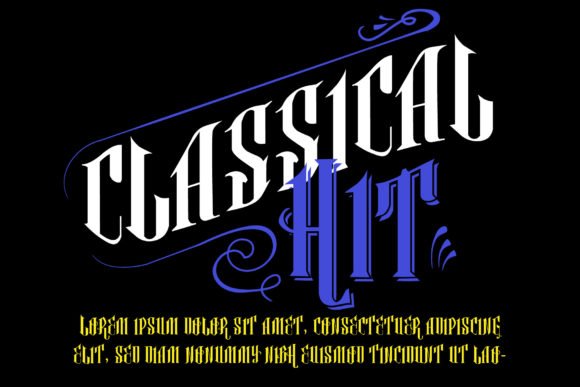
Unleash the Timeless Charm of Your Designs
Have you ever stared at a blank canvas, waiting for inspiration to strike? The blank page stares back, and you’re left wondering where to begin. It’s a moment we’ve all been in, and it’s precisely this moment that the right font can make all the difference. Introducing the Classical Hit Font, a magical serif font that will transport your designs back in time.
This enchanting font boasts a vintage and retro style that adds a touch of sophistication to any creative project. Whether you’re crafting Instagram posts or calligraphy scripts for DIY projects, Classical Hit Font will elevate your ideas into stunning works of art.
Classical Hit Font Key Features
- Unique Characteristics: Features a classic, elegant design with subtle serif details, evoking a sense of sophistication and refinement.
- Kerning and Ligatures: Offers advanced kerning and ligature features, ensuring smooth text flow and optimal readability in complex text settings.
Classical Hit Font Review
Overall, I think the Classical Hit Font has some great qualities, but it also has some areas where it falls short. Here are my honest thoughts:
- The font’s elegant and sophisticated design makes it perfect for formal invitations, wedding stationery, and other high-end projects.
- The intricate details and ornaments add a touch of luxury and refinement, making it stand out from more generic fonts.
- The font is highly legible, even at smaller sizes, making it suitable for a wide range of applications.
Limitsations ⚠️
- The font may be too ornate for some projects, making it difficult to read or overwhelming the design.
- The lack of bold weights and italics may limit its versatility and flexibility in different design scenarios.
- The font’s complexity may make it challenging to customize or edit, especially for designers without extensive experience with ornate fonts.
In conclusion, the Classical Hit Font is a beautiful and elegant choice for high-end projects, but its limitations may make it less suitable for more casual or modern designs. With some careful consideration and planning, it can be a fantastic addition to any designer’s toolkit.
The Classical Hit Font is ideal for use in:
– Business cards and letterheads
– Luxury branding and packaging
– Elegant website design
– High-end marketing materials
Getting the Most Out of the Font
For the best results, use the Classical Hit Font in combination with other elegant design elements, such as cursive script and ornate illustrations. Experiment with different font sizes and styles to create a unique and sophisticated look.
Alternatives to Classical Hit Font for Designers
Playfair Display is a luxurious, high-end serif font perfect for creating an elegant and sophisticated look. It’s ideal for use in high-end branding, luxury packaging, and fine art designs. In comparison to Classical Hit Font, Playfair Display has a more refined and sophisticated feel, making it a great choice for projects that require a touch of luxury.
Great Vibes is a beautiful, elegant script font that’s perfect for creating a sense of warmth and sophistication. It’s ideal for use in branding, packaging, and editorial designs where a touch of elegance is required. Compared to Classical Hit Font, Great Vibes has a more fluid and organic feel, making it a great choice for projects that require a sense of whimsy and romance.